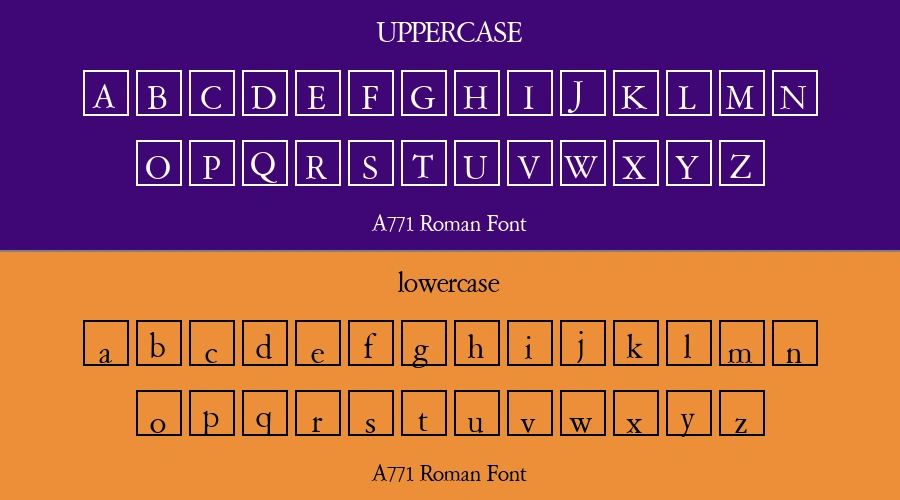
About A771 Roman Font
Designed with precision, A771 Roman Font merges clean lines with consistency in every character. This versatility makes it particularly effective for corporate reports, where craftsmanship and manufacturing quality directly impact communication quality. Each letterform demonstrates meticulous craftsmanship.
Technical excellence shines through elements like systematic design and pi characters, enhancing typographic versatility. In warning labels settings, A771 Roman Font proves its worth through superior versatility. The thoughtful execution of counter shape and lifestyle connection ensures professional results.